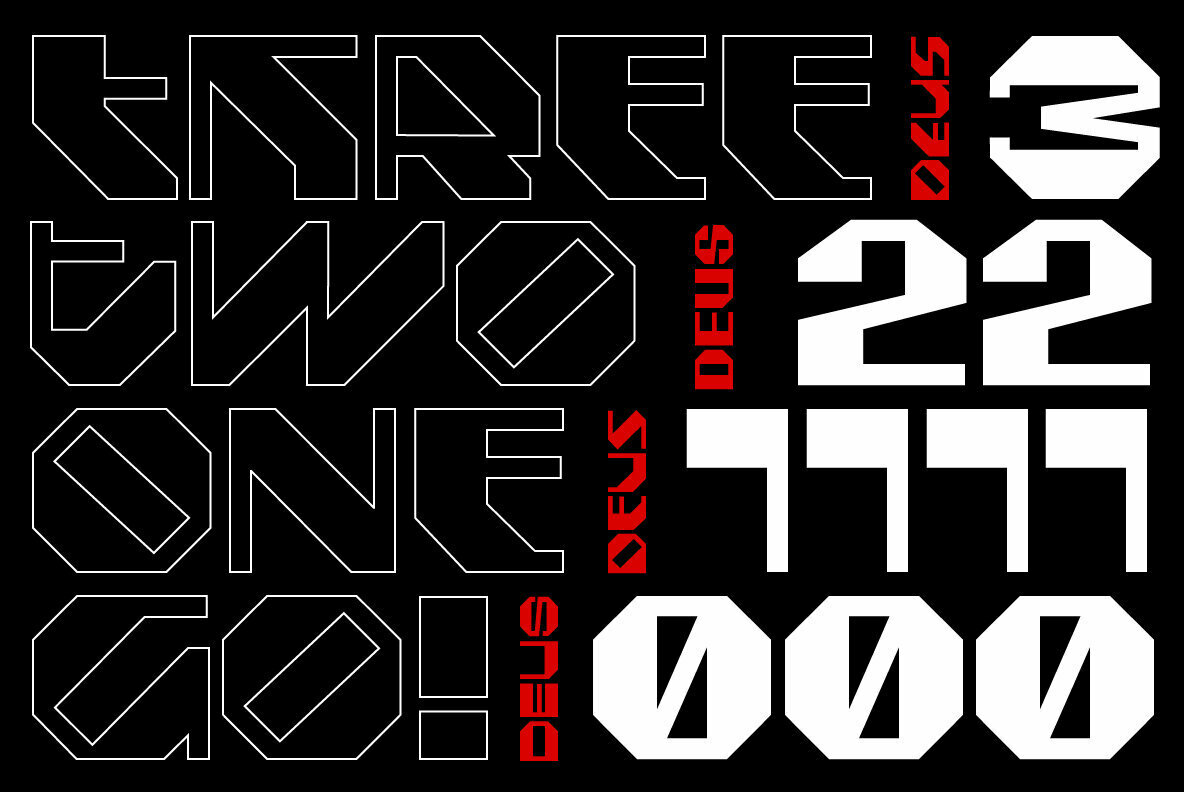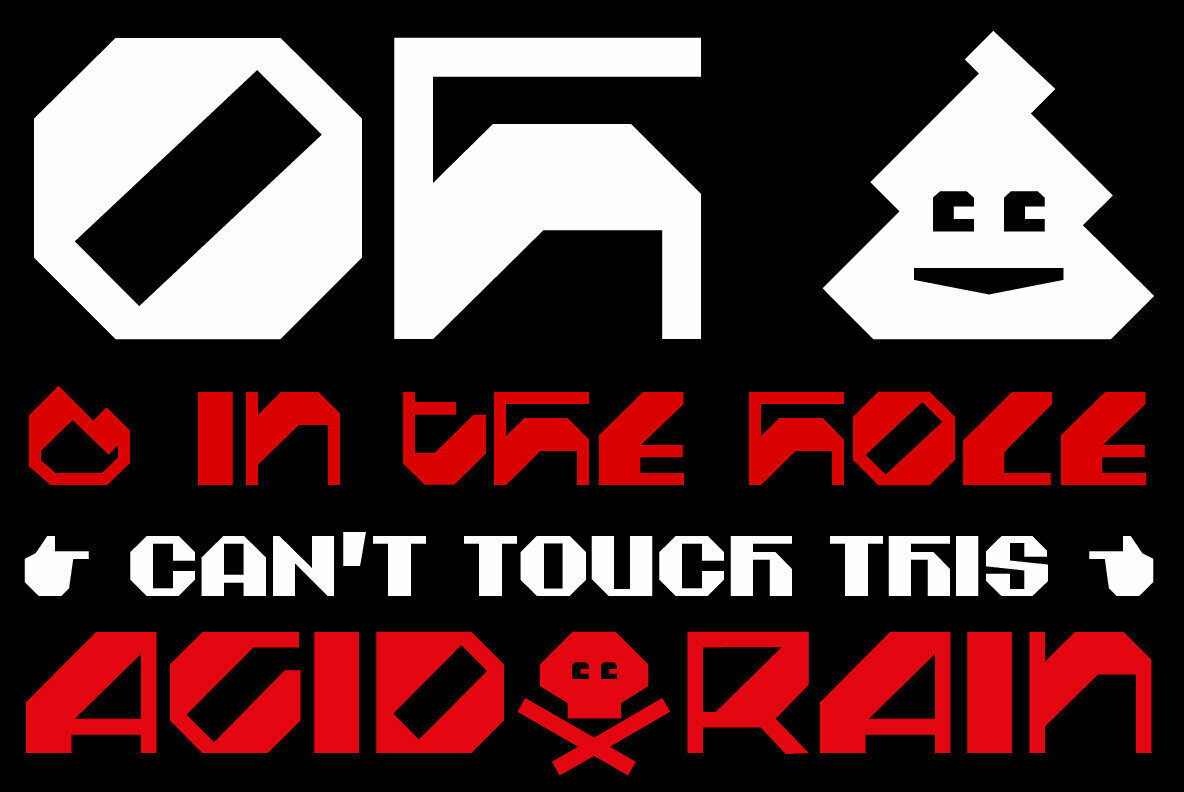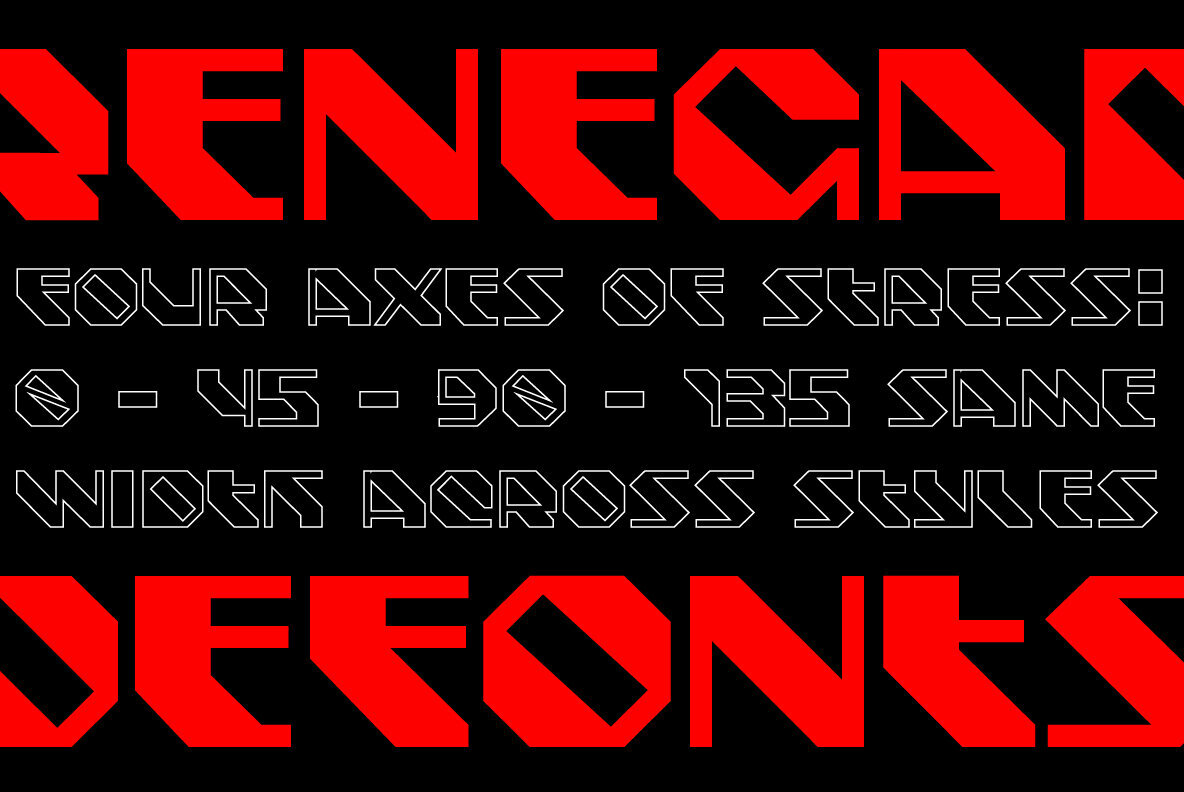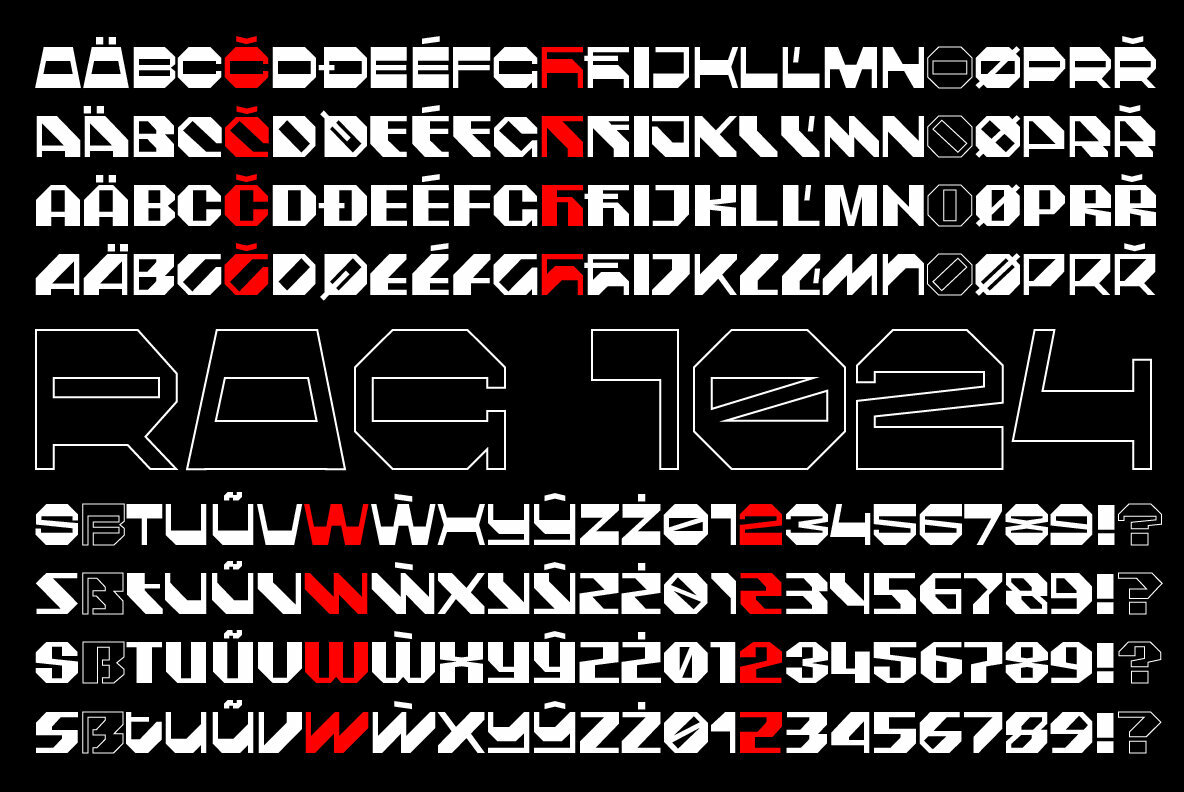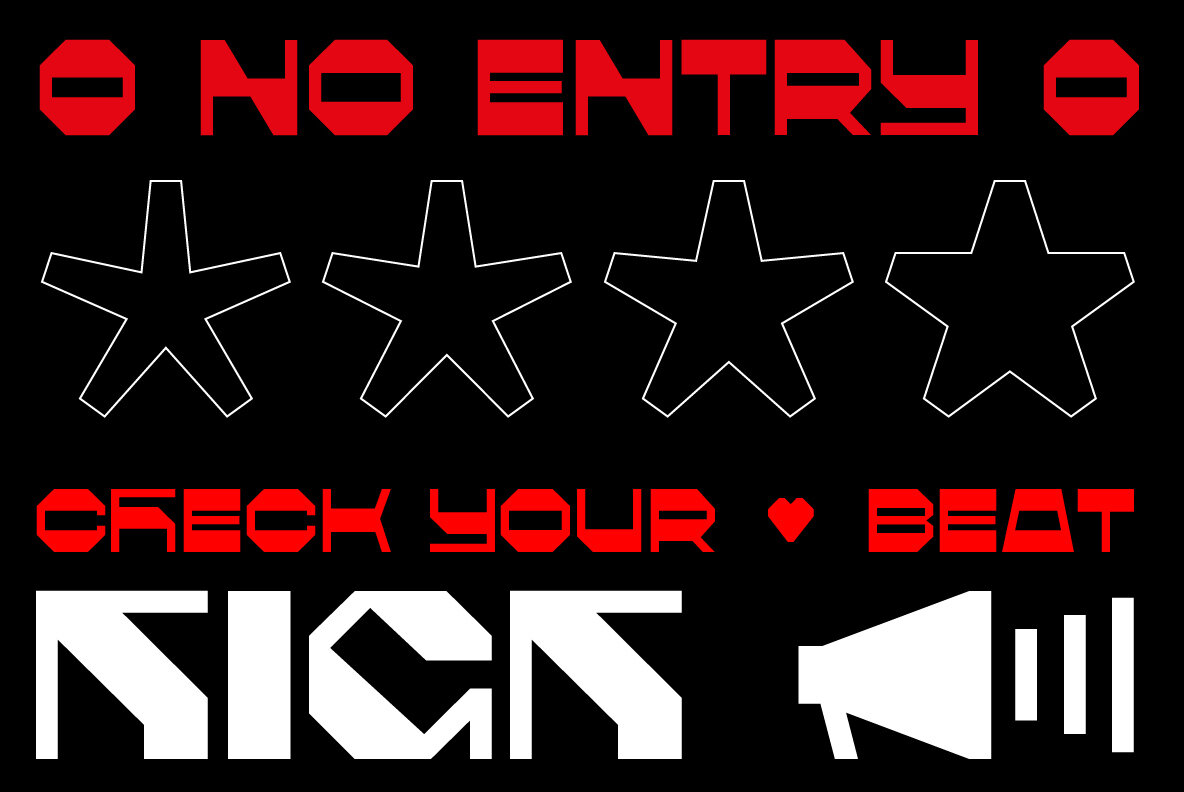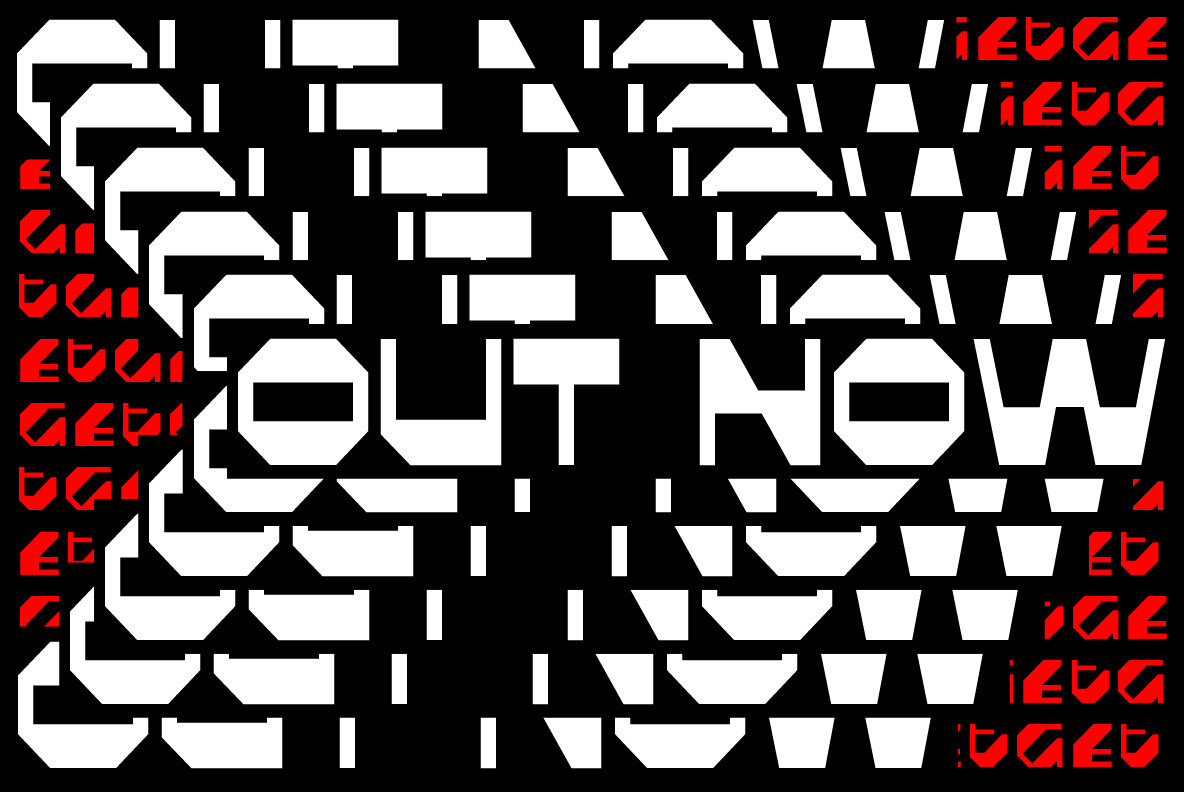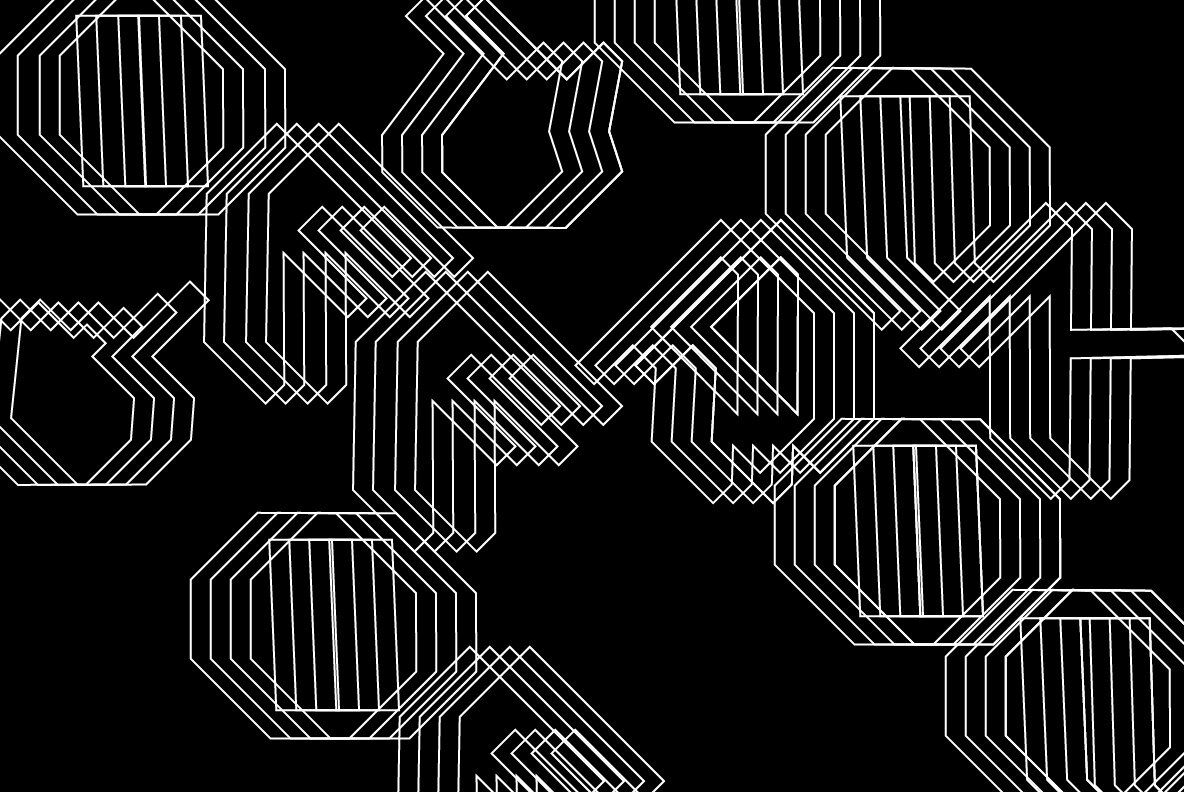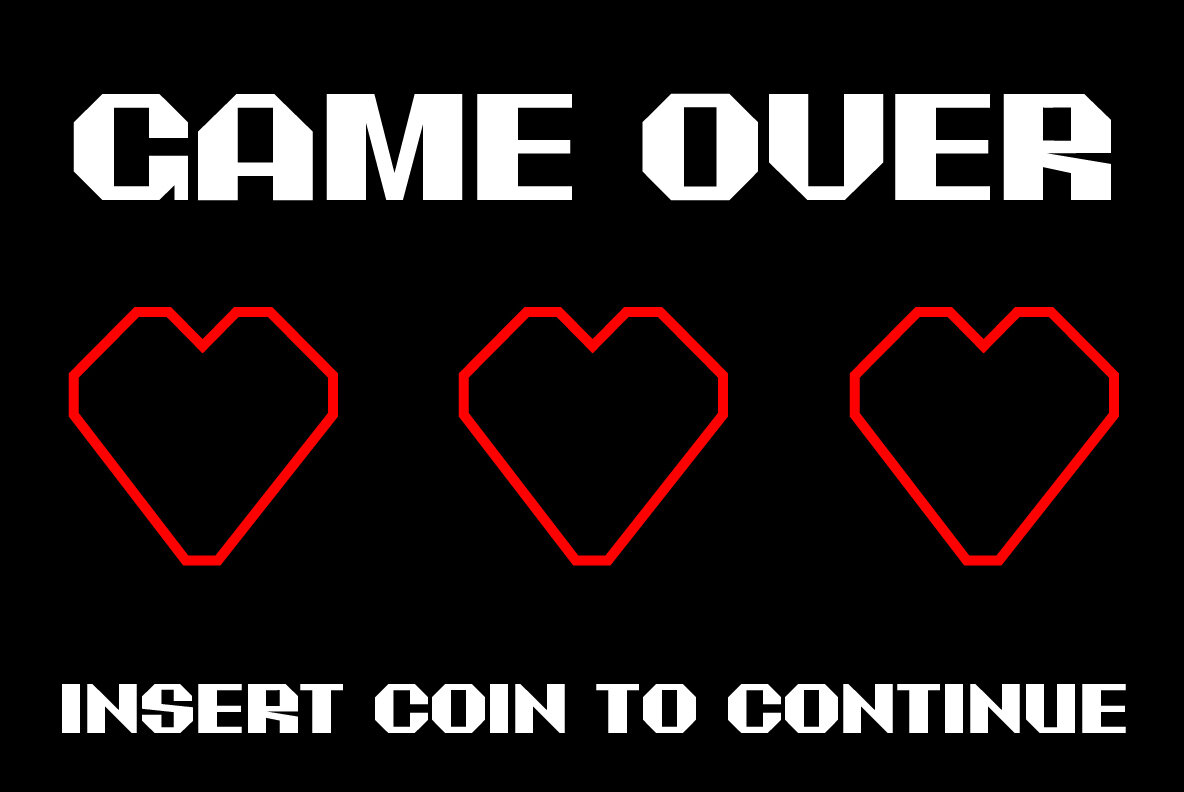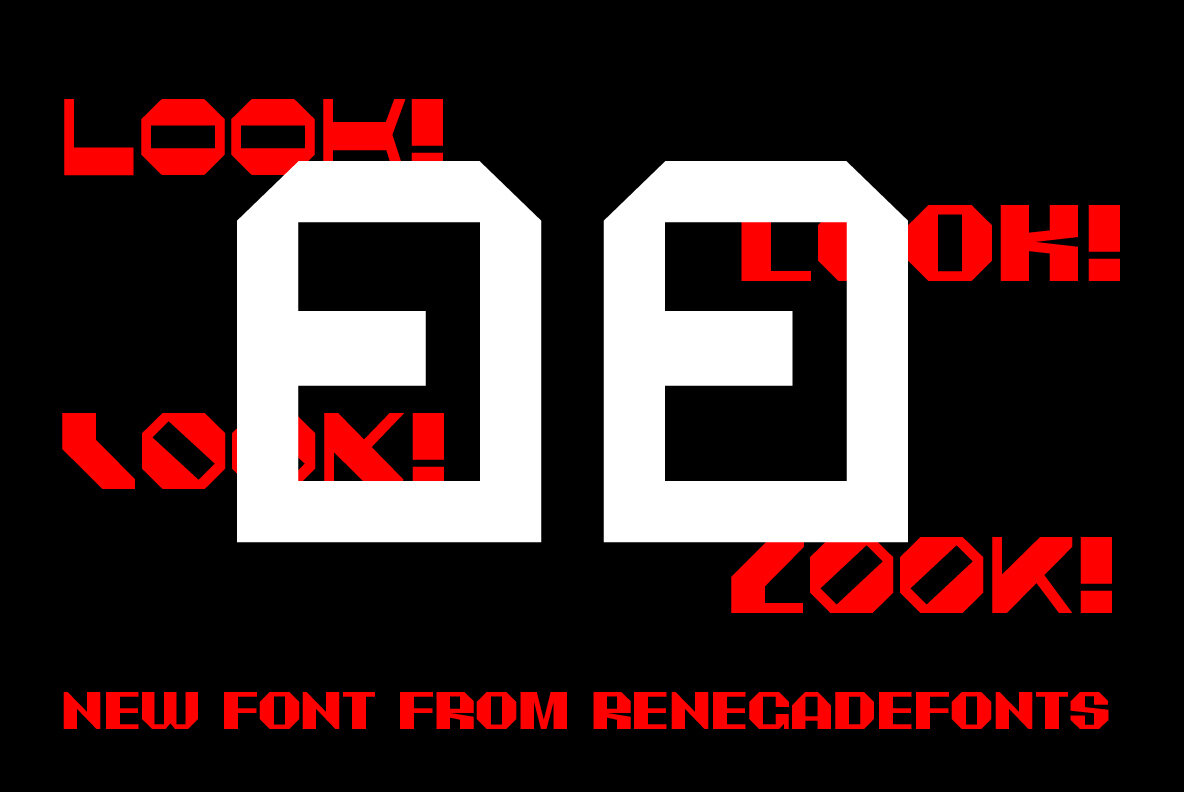
Deus Font
Deus is when type design is brought to the extreme. It tries to answer the question of whether you can design all glyphs in one axis of stress. It does not try to be all-purpose, useful at all sizes, legible or readable and most of all it does not try to be neutral. It has its own style you either accept or not. But if you do so. It has many great stuff inside. Every glyph has the same width across four masters, so you can change the style in one title or even make an animation out of that. It also has some cool animated emojis, so make sure you take all four styles!